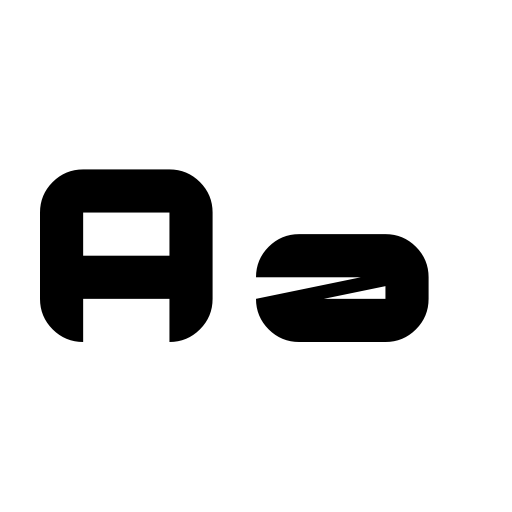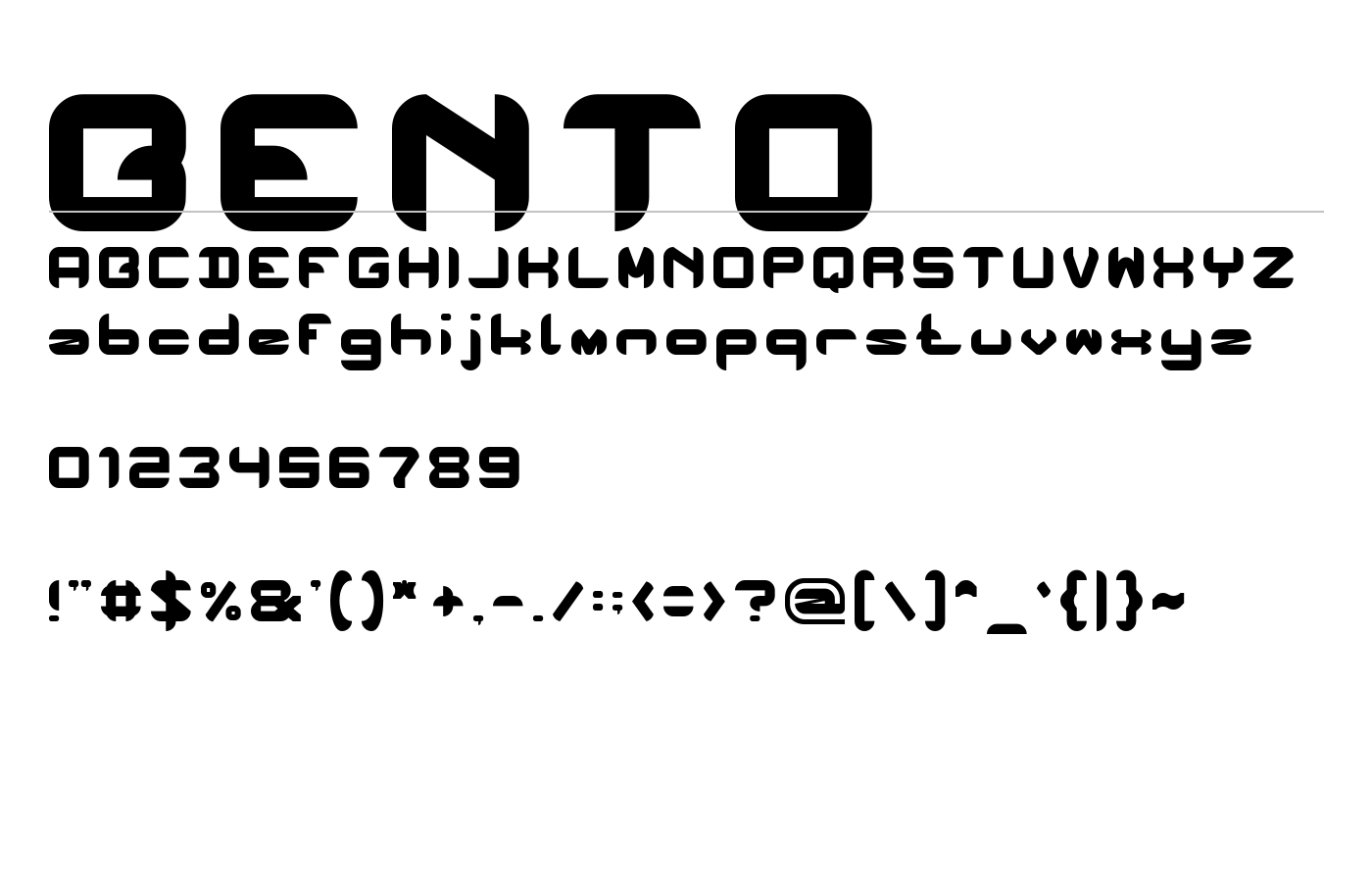
BENTO is a bold, geometric sans serif font with a futuristic and tech-inspired feel. Its thick, rounded shapes and unique letterforms give it a modern, adventurous personality, making it perfect for branding, posters, and headlines where a strong, distinctive impression is needed. This font works well in creative and digital contexts that want to convey innovation and boldness.
BENTO Font
About BENTO Font